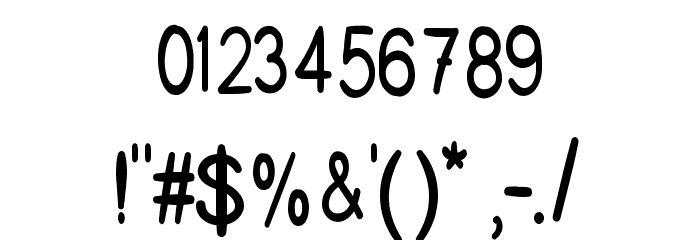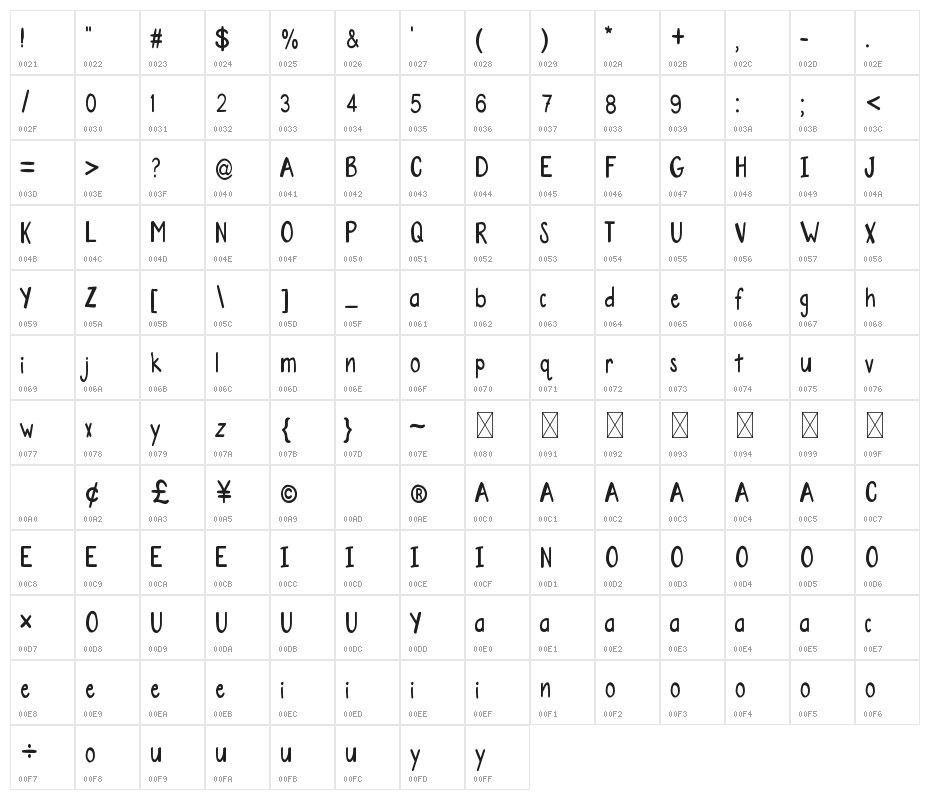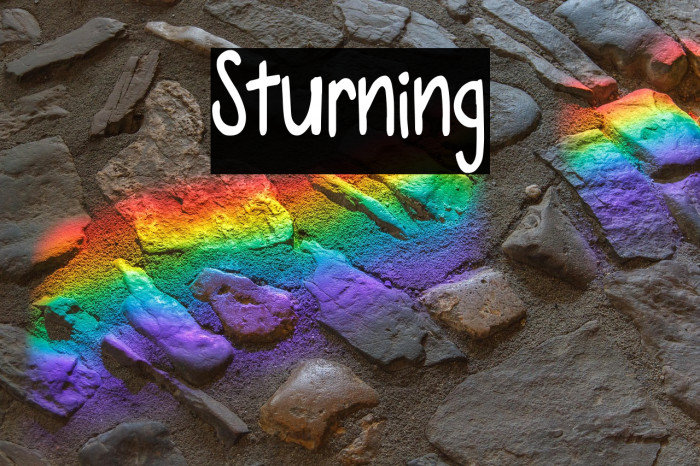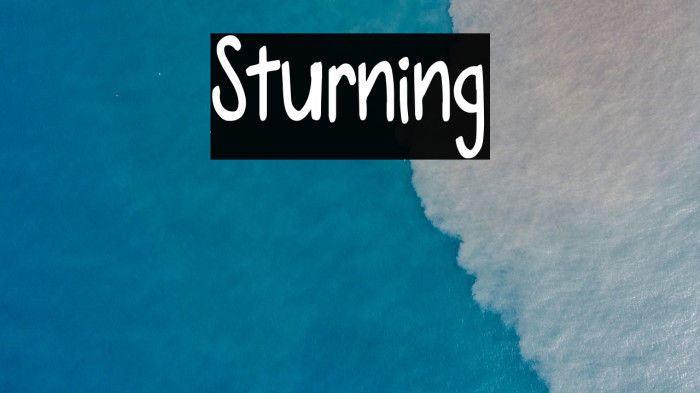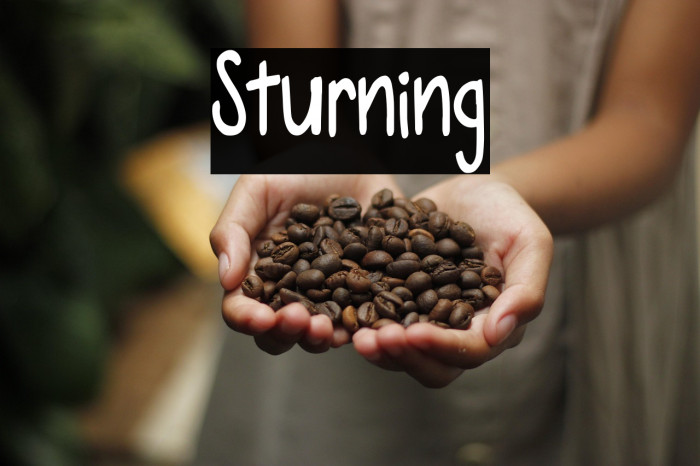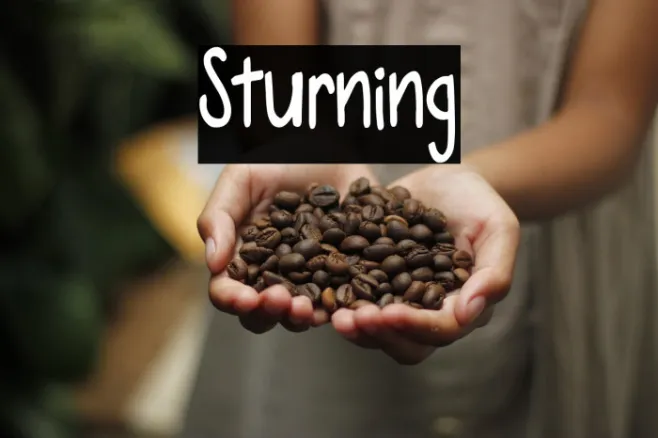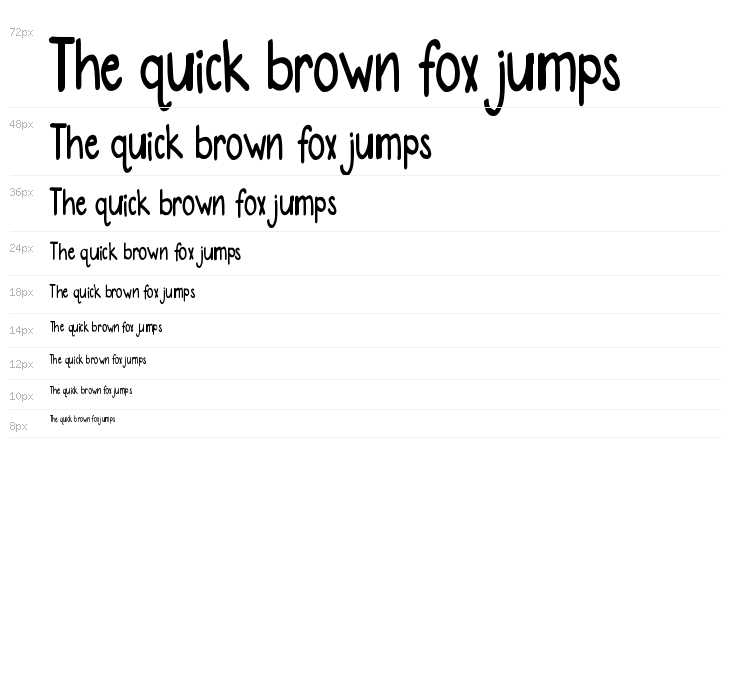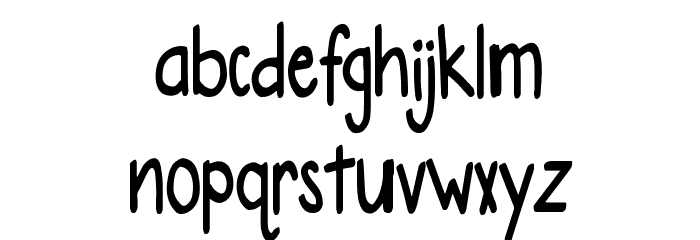
Sturning Font
Sturning Description
This playful and whimsical font features rounded, slightly irregular letterforms that convey a sense of fun and creativity. The characters have a hand-drawn appearance, with a consistent stroke width that maintains readability while adding a touch of personality. The uppercase and lowercase letters are well-balanced, and the numerals are clear and distinct. Special characters are included, enhancing the font's versatility. Its casual style makes it suitable for informal and creative projects, where a friendly and approachable look is desired.
Overall StyleCasual
Use CaseHeadlines, Logos, Informal Text
Proposed ProjectsIdeal for children's books, greeting cards, playful branding, and creative posters.